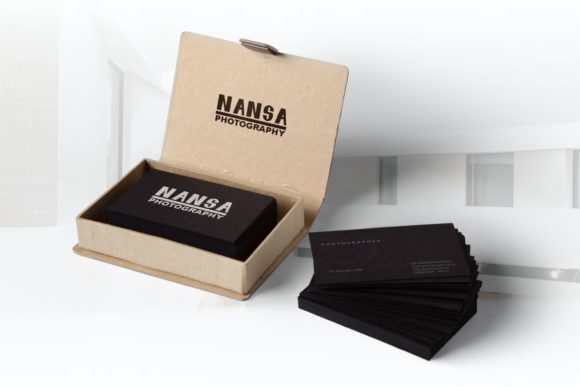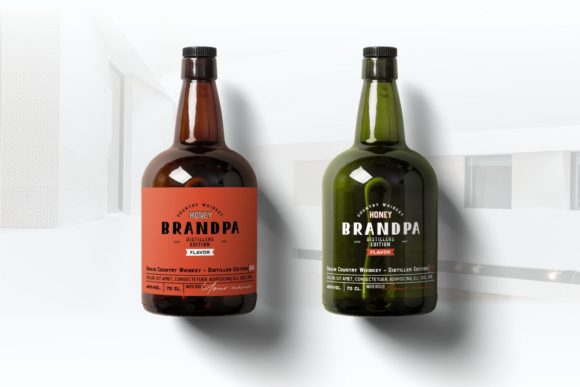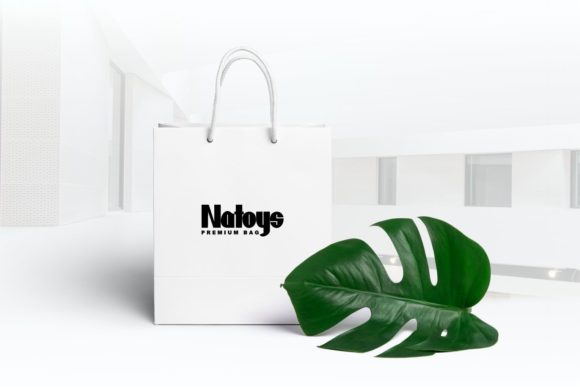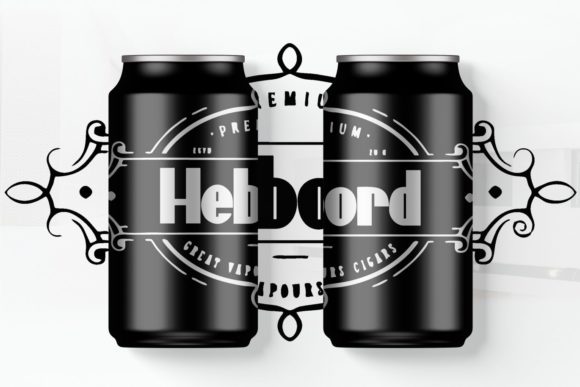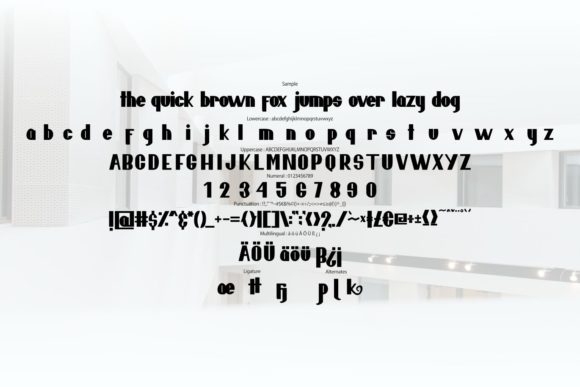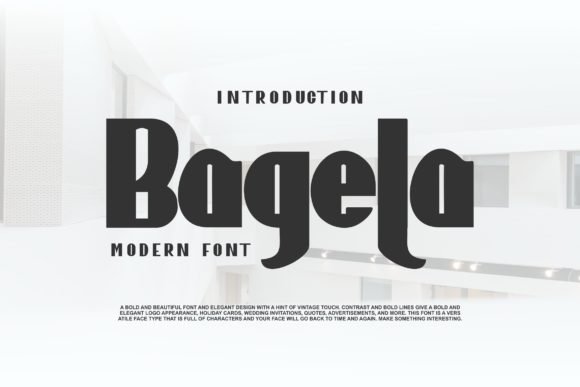
The Birth of a Design Favorite: Bagela Font
There’s something magical about stumbling upon the perfect font – the moment when a project’s message and aesthetic finally click into place. For many designers, it’s a feeling that’s hard to replicate, but also incredibly rewarding. And that’s exactly what we’re excited to introduce: Bagela Font, a bold sans serif font that’s been carefully crafted to become a true design favorite.
Begun with a focus on casual charm and readability, Bagela Font is the perfect addition to any designer’s toolkit. Its versatility makes it a valuable asset for creating standout designs, from busy backgrounds to eye-catching headlines. Whether you’re working on a branding project or a web design, Bagela Font is sure to elevate your work and leave a lasting impression.
Bagela Font Key Features
- Font Family: Bagela Font comes in two font families – Regular and Bold.
- Character Set: Supports a wide range of characters, including Latin, Cyrillic, and Greek alphabets.
- Unique Characteristics: The Bagela Font features a unique blend of modern and traditional elements, with intricate details and ornate flourishes.
Bagela Font Review
As a designer, I was excited to dive into the world of Bagela Font. Overall, I think it has some great qualities, but also some limitations that might make it less appealing to some users.
- Unique Character**: Bagela Font has a distinct personality that can add a touch of whimsy to your designs.
- Customization Options**: The font comes with a range of customization options, including different font weights, styles, and sizes.
- Legibility Issues**: At smaller font sizes, the letters can become difficult to read, which might make it less suitable for body text.
- Limited Font Family**: The Bagela Font family is relatively small, which might limit its versatility and flexibility in design projects.
- Not Ideal for Large Text**: Due to its unique character, Bagela Font might not be the best choice for large, prominent text, where legibility is crucial.
Bagela Font is a fun and creative font that can add a touch of personality to your designs. While it has some limitations, it can be a great choice for projects where you want to add a unique flair. However, it might not be the best option for projects that require high legibility or a wide range of font sizes.
Getting the Most Out of Bagela Font
For the best results, use Bagela Font in bold or italic to add emphasis to your text. You can also pair it with other fonts to create a unique and visually appealing design. Experiment with different font sizes and colors to find the perfect combination.
Bagela Font is perfect for creating eye-catching titles, headings, and logos. It’s also great for adding a touch of elegance to your text. Use it in wedding invitations, business cards, or any other design where you want to make a statement.